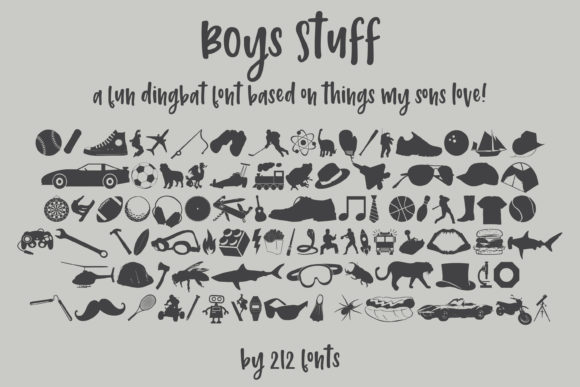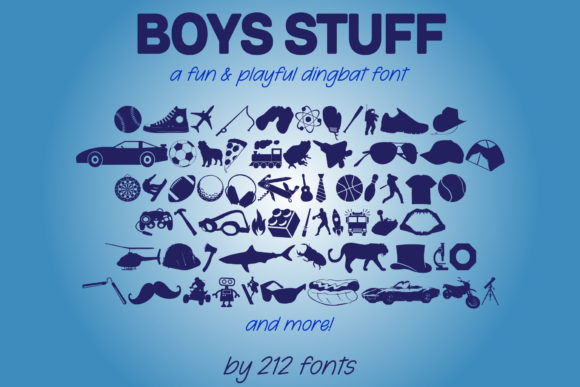
Boys Stuff Font
About Boys Stuff Font
Boys Stuff sounds like a fantastic dingbat font filled with a variety of kid-friendly glyphs! With its collection of 98 silhouettes, this font can add a playful and adventurous touch to any design project. Here are some ideas on how to incorporate these glyphs and create engaging designs:
1. Kids’ Apparel and Accessories: Use the Boys Stuff glyphs to create designs for boys’ clothing, such as t-shirts, hoodies, or hats. Combine elements like sports equipment, hats, or shoes to create fun and stylish prints that resonate with young boys.
2. Stationery and School Supplies: Design notebooks, folders, or pencil cases featuring the Boys Stuff glyphs. Incorporate tools, bugs, sharks, or food to create themed stationery that appeals to young boys and adds a touch of excitement to their school supplies.
3. Boys’ Room Decor: Create wall art or decals for boys’ bedrooms using the Boys Stuff glyphs. Design posters or wall stickers featuring camping and fishing gear, sports equipment, or favorite animals to create a personalized and adventurous space.
4. Party Invitations and Decorations: Use the glyphs to design invitations, banners, or party decorations for boys’ birthday parties or other special occasions. Incorporate elements like sports equipment, food, or animals to create a cohesive and exciting party theme.
5. Book Illustrations: If you’re involved in children’s book illustration, the Boys Stuff glyphs can be used to create charming and engaging visuals. Incorporate the silhouettes into illustrations that complement the text and capture the imagination of young readers.
6. Toy Packaging: Design packaging for toys and games targeting young boys. Use the Boys Stuff glyphs to create visual representations of the toys or incorporate them into the overall packaging design to create an appealing and playful package.
Remember to consider the interests and preferences of your target audience when incorporating the Boys Stuff glyphs. These silhouettes can help you create designs that resonate with young boys and bring a sense of joy and excitement to your projects.